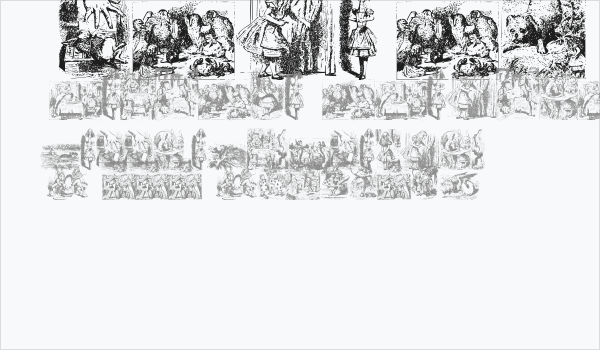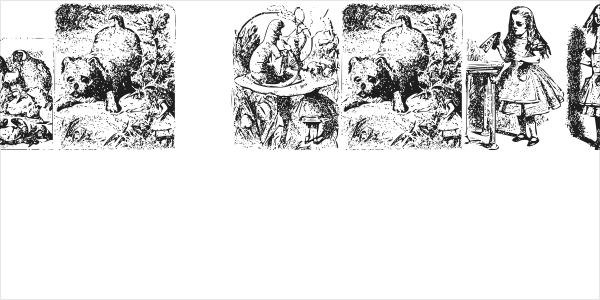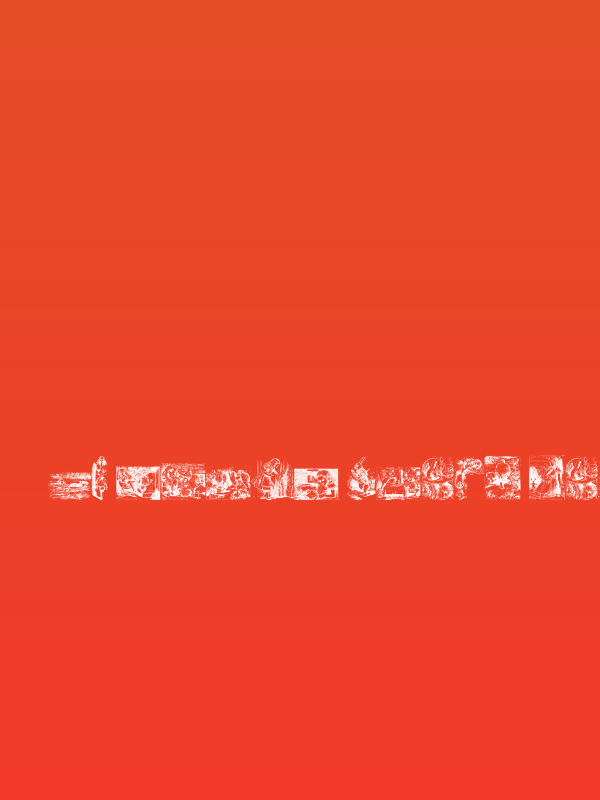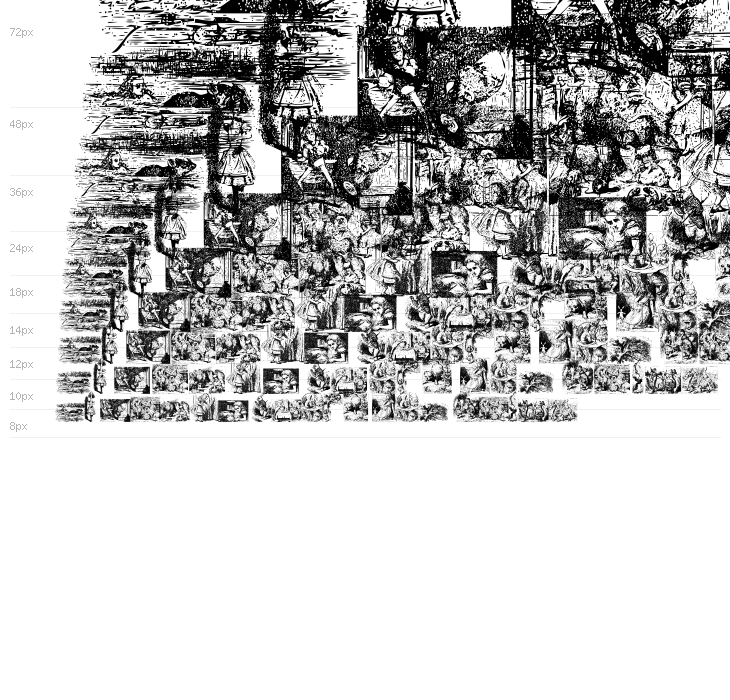
Alice in Wonderland Font
Alice in Wonderland Description
A decorative display set featuring detailed black-and-white illustrations from the Alice in Wonderland story, with each character or symbol represented by a unique scene or figure from the classic tale.
| Overall Style | Vintage, Illustrative, Storybook |
| Use Case | Display, Decorative headings, Themed graphics |
| Proposed Projects | Book covers, themed party invitations, posters, children’s event materials, fantasy branding. |